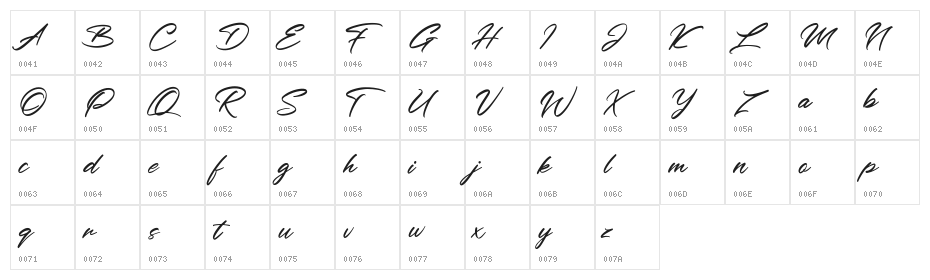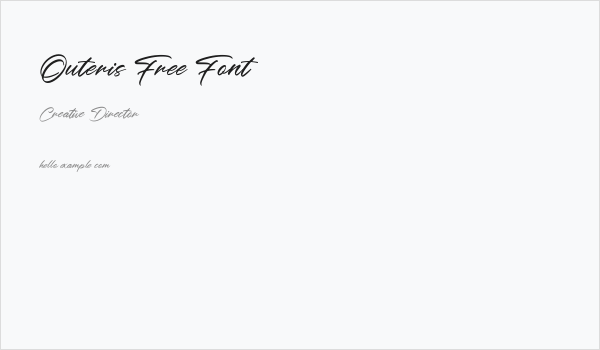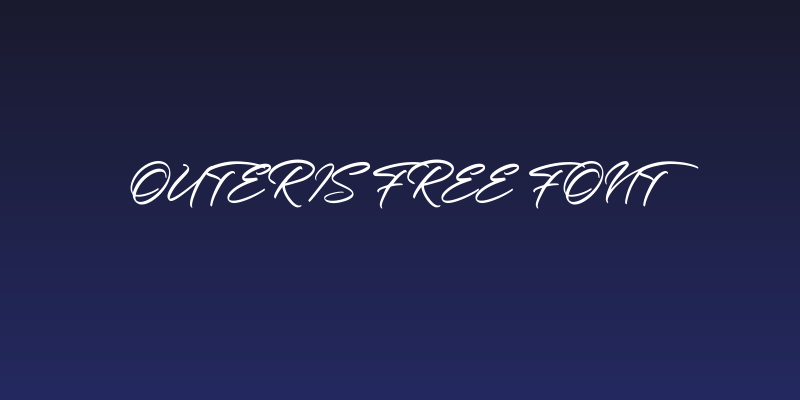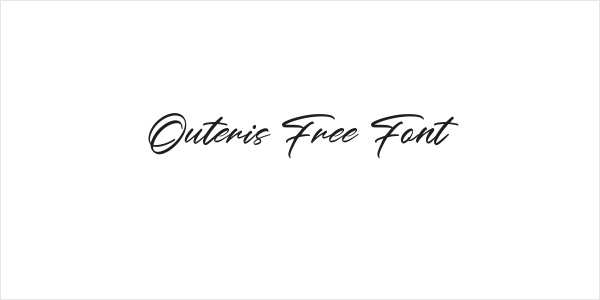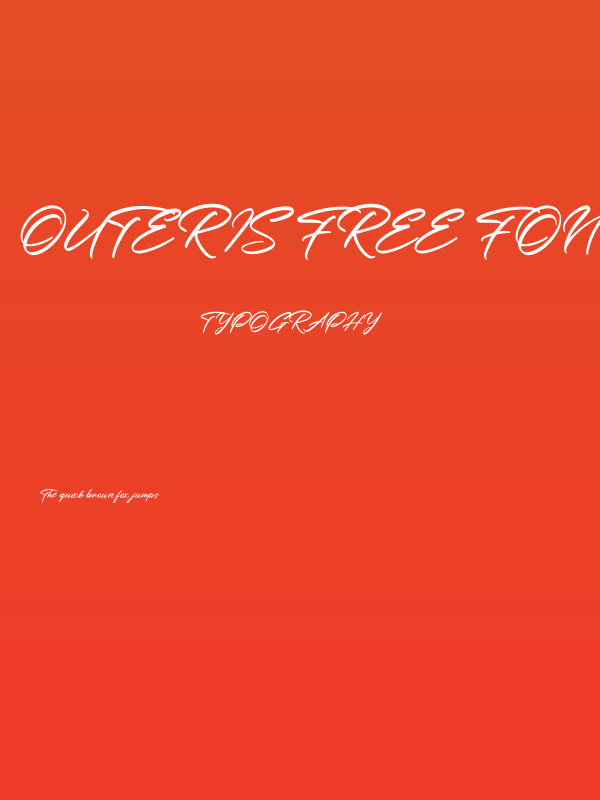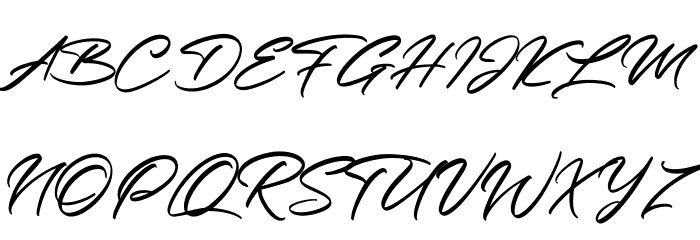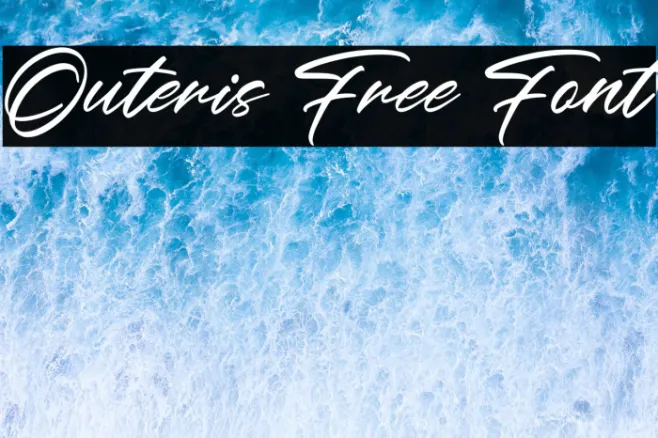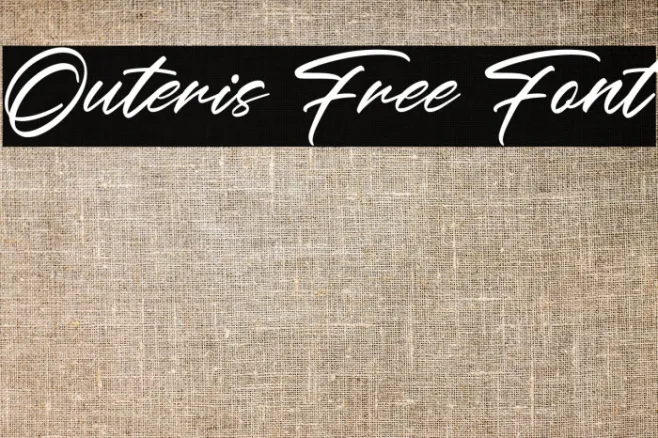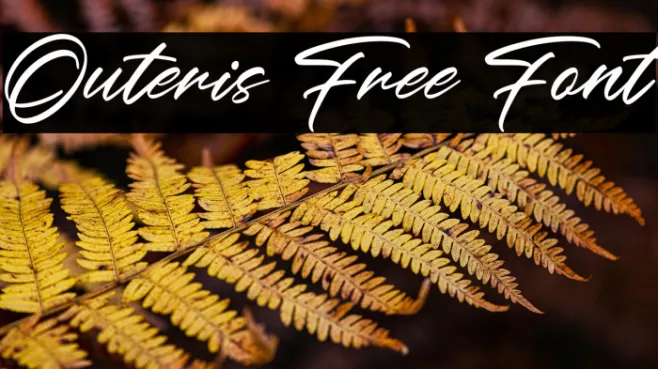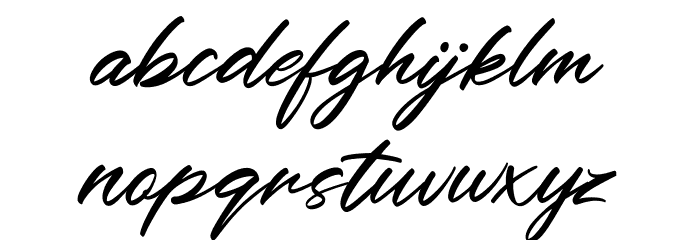
Outeris Free Font Font
Outeris Free Font Description
This font features a dynamic and flowing script style, characterized by its elegant and cursive letterforms. The uppercase letters exhibit a graceful, sweeping motion, while the lowercase letters maintain a consistent fluidity, enhancing readability. The font's design is reminiscent of traditional calligraphy, with a modern twist that adds a touch of sophistication. The strokes are smooth and connected, giving it a cohesive appearance. This font is ideal for projects that require a personal and artistic touch, such as invitations, greeting cards, and branding materials.
| Proposed Projects | Ideal for invitations, greeting cards, branding, and artistic projects. |